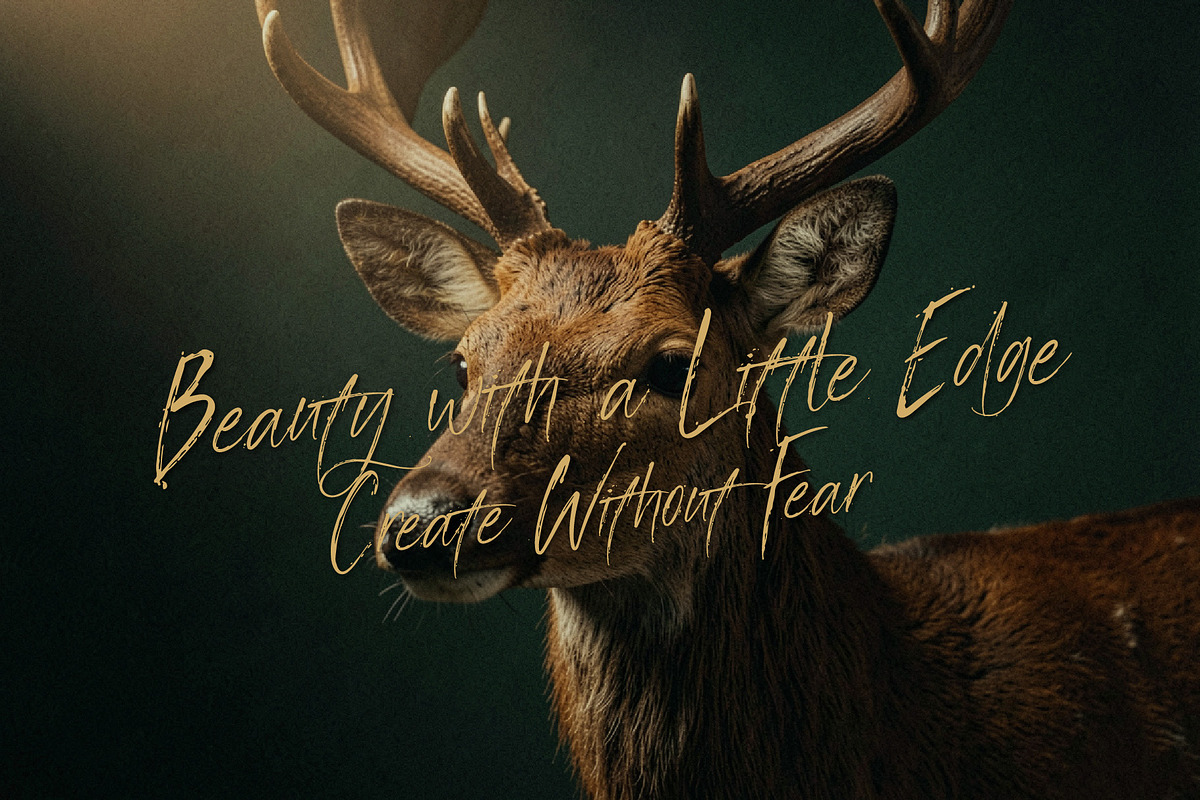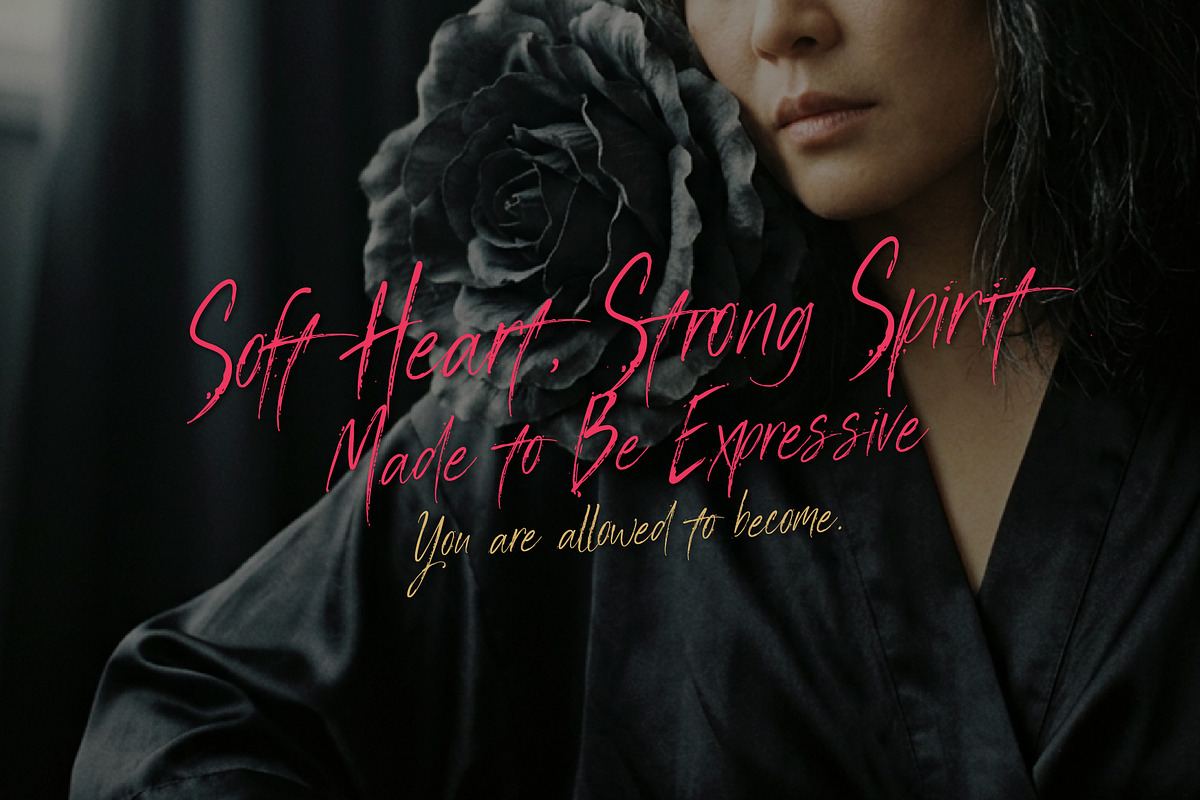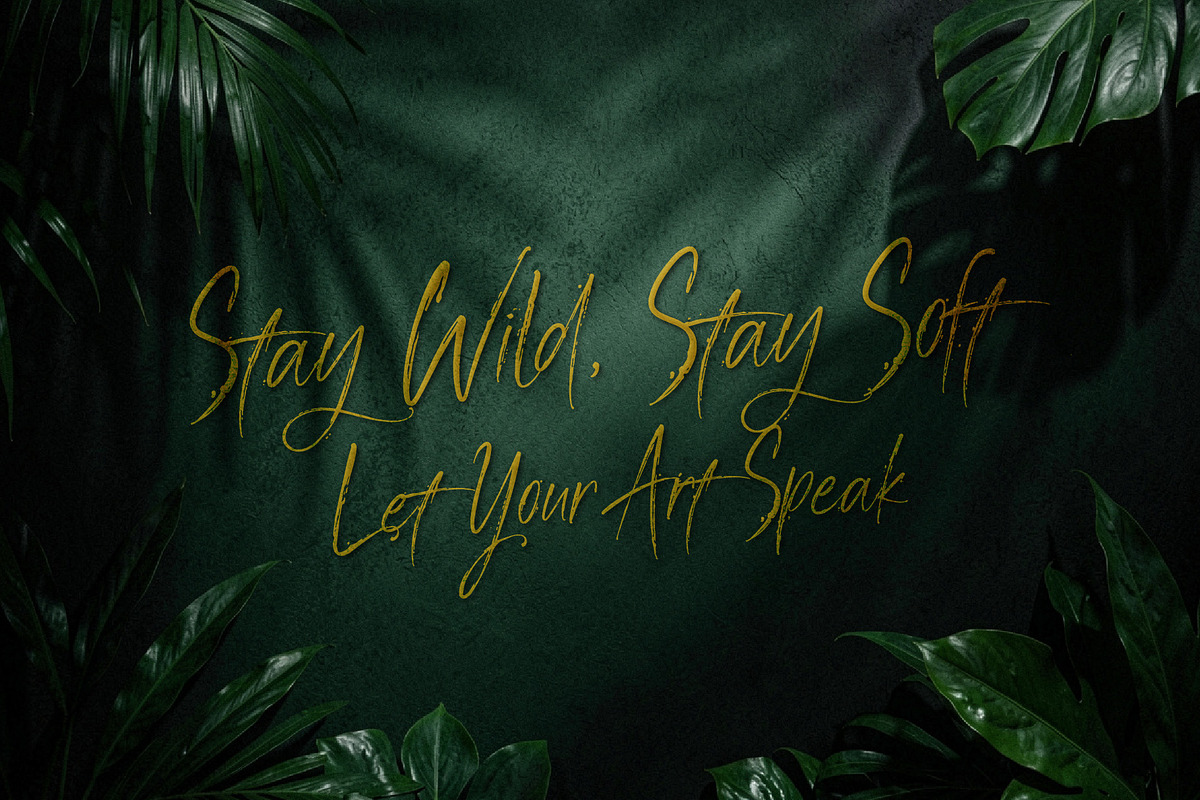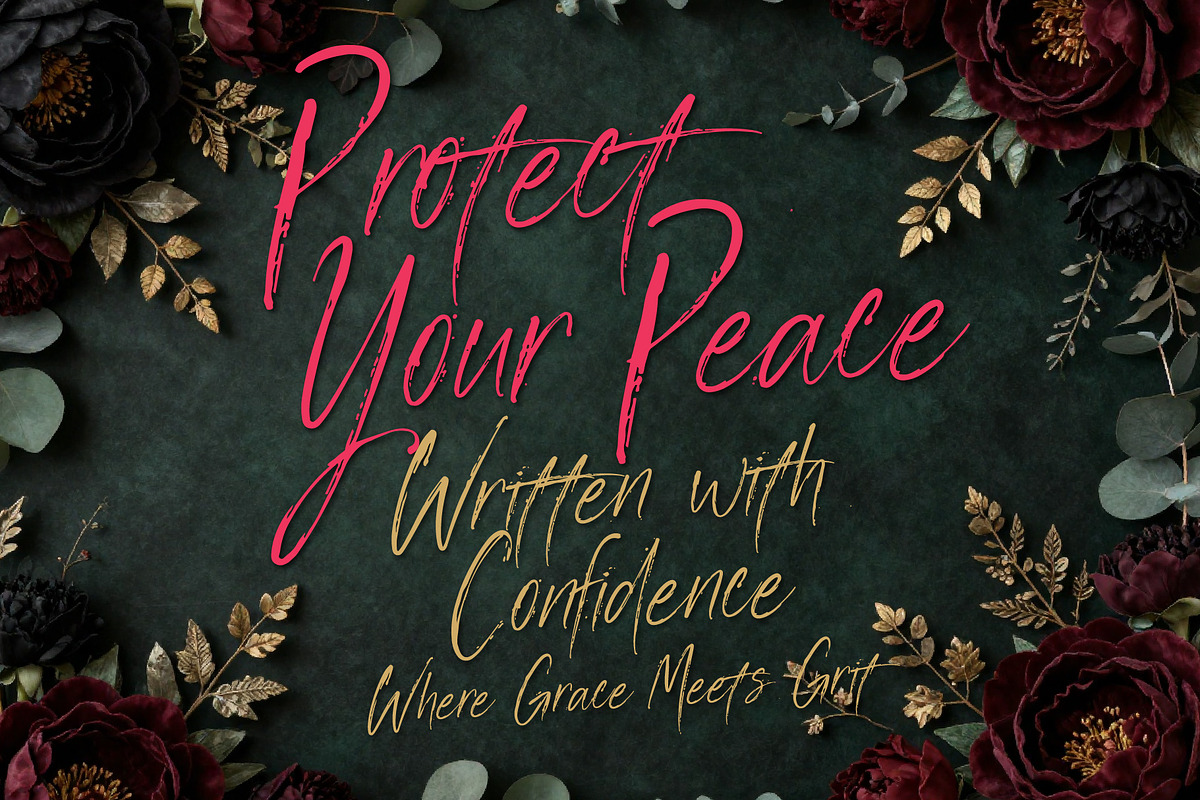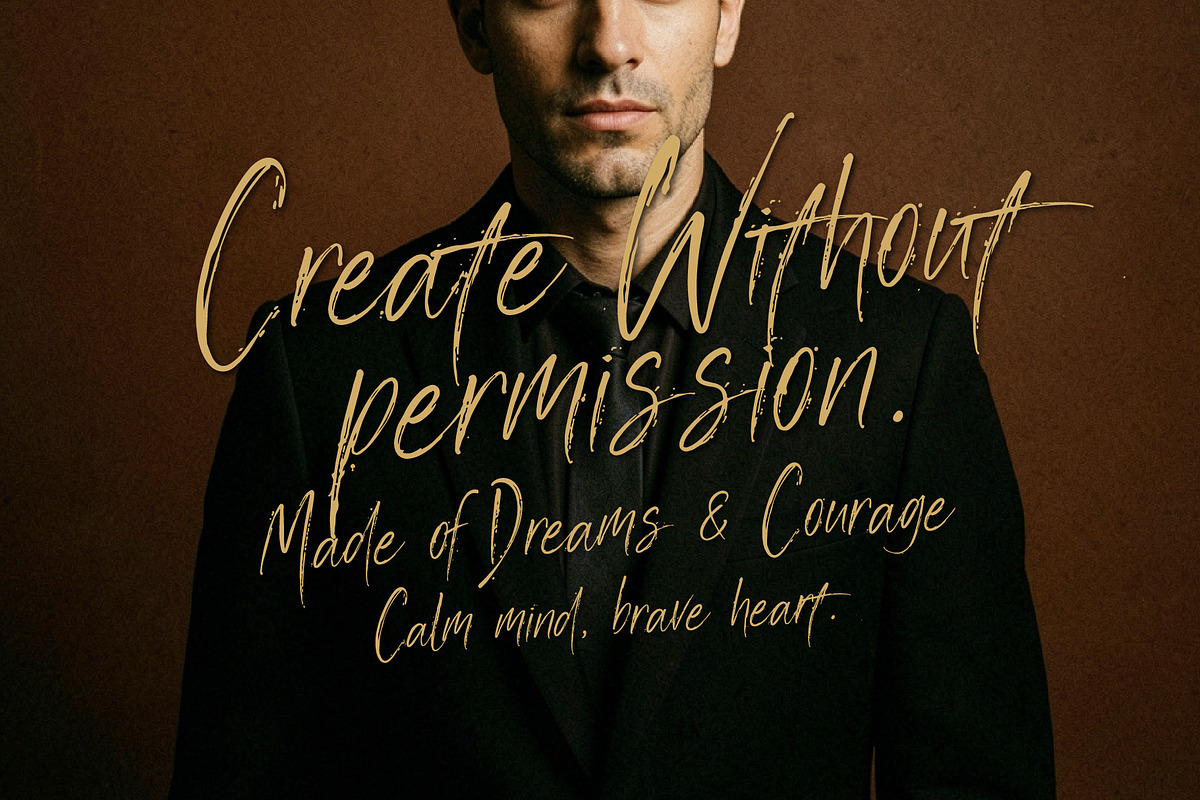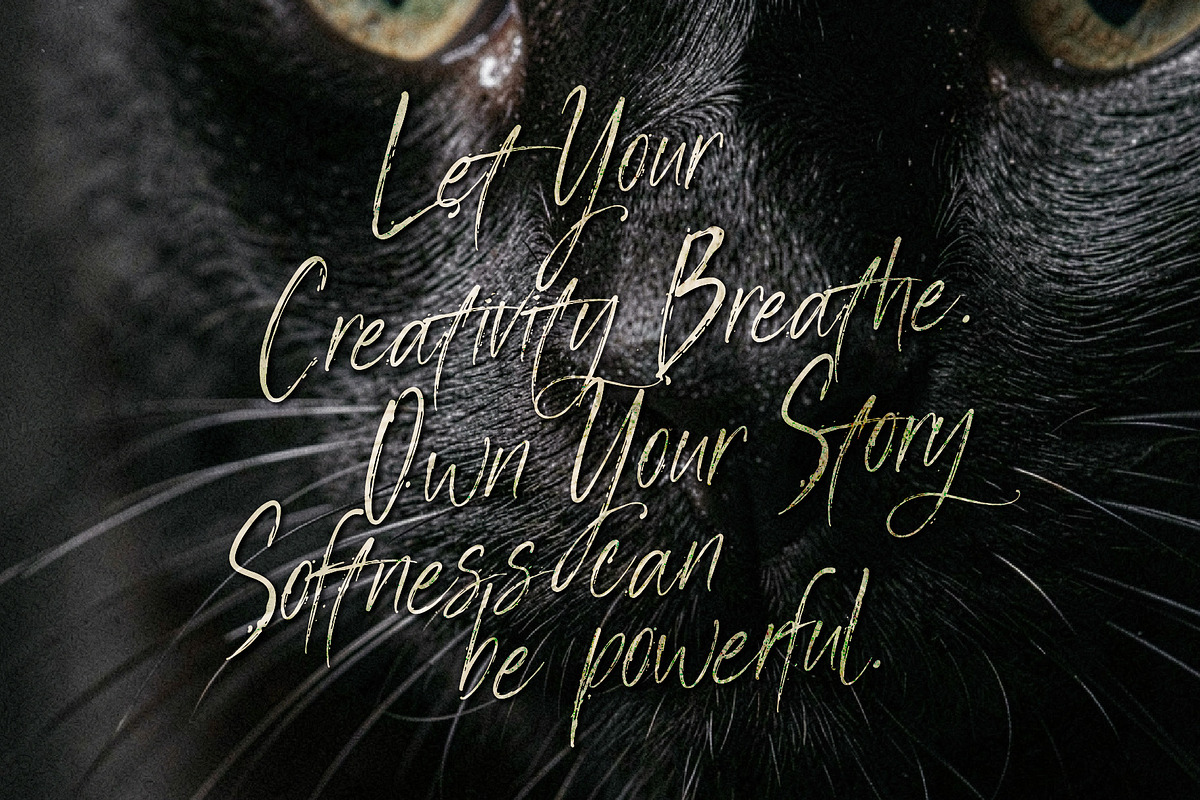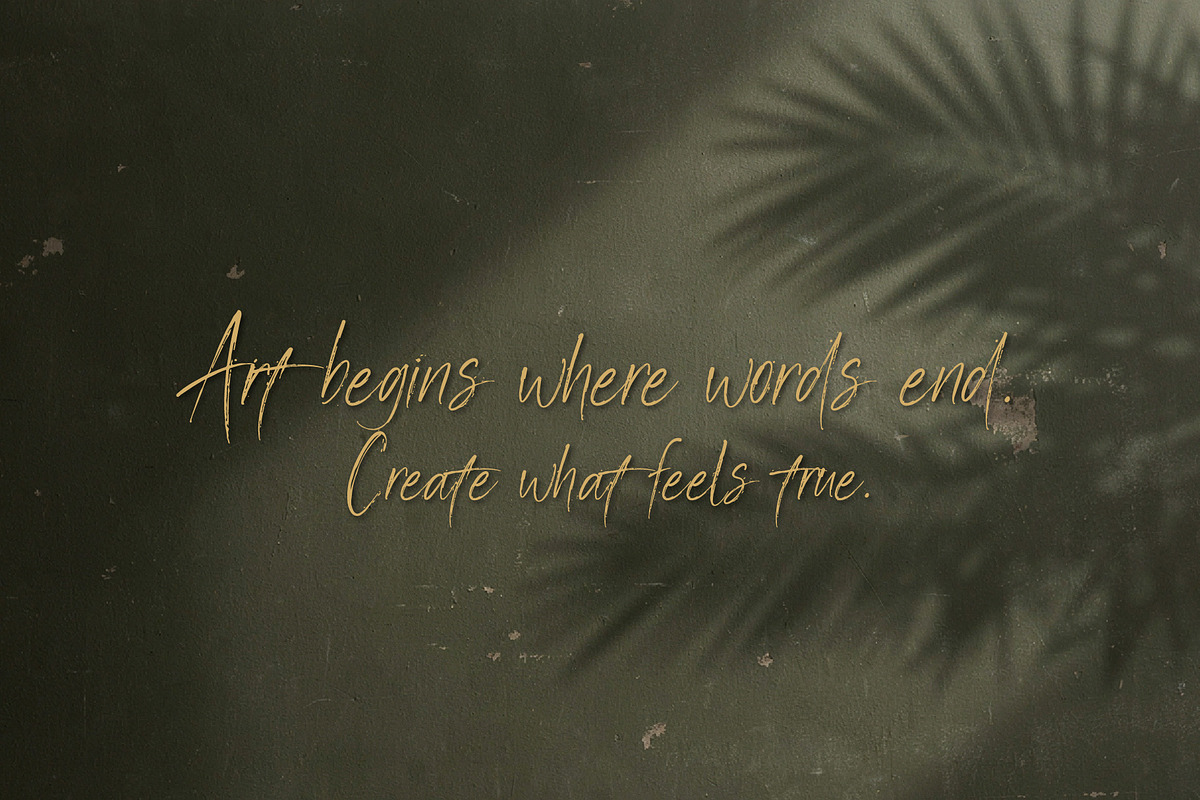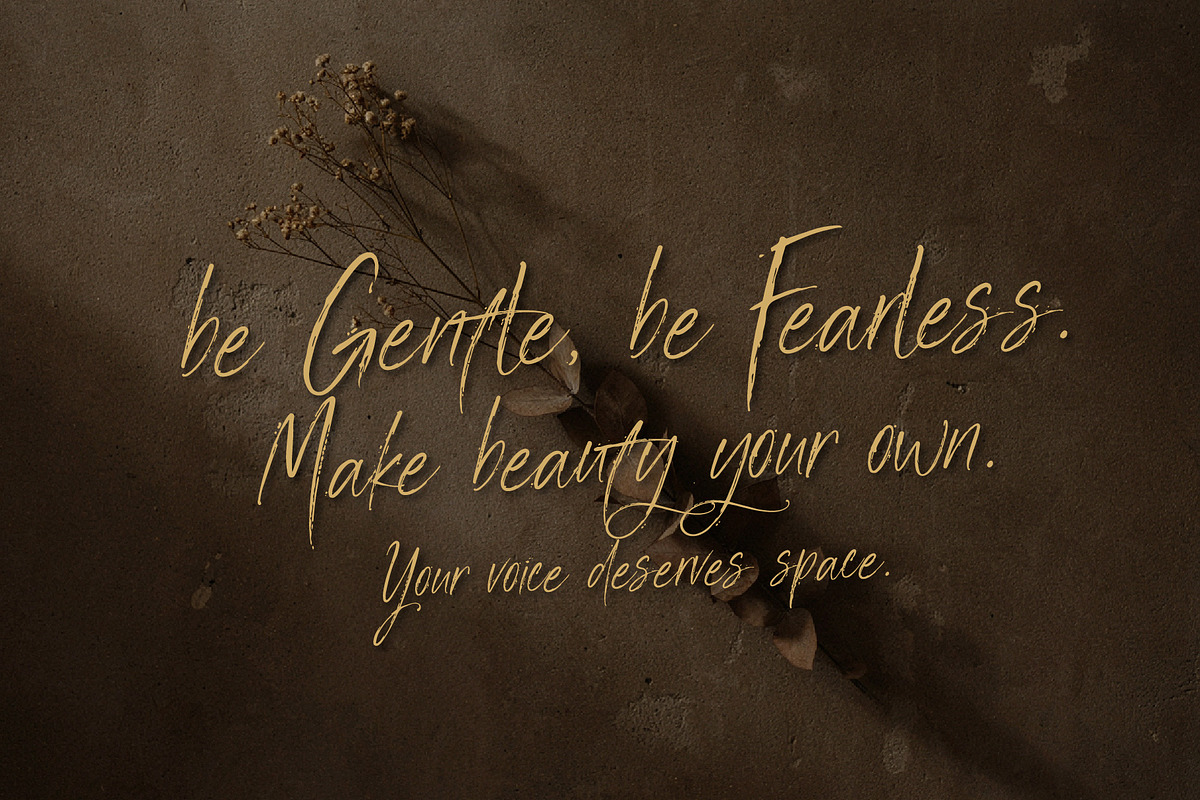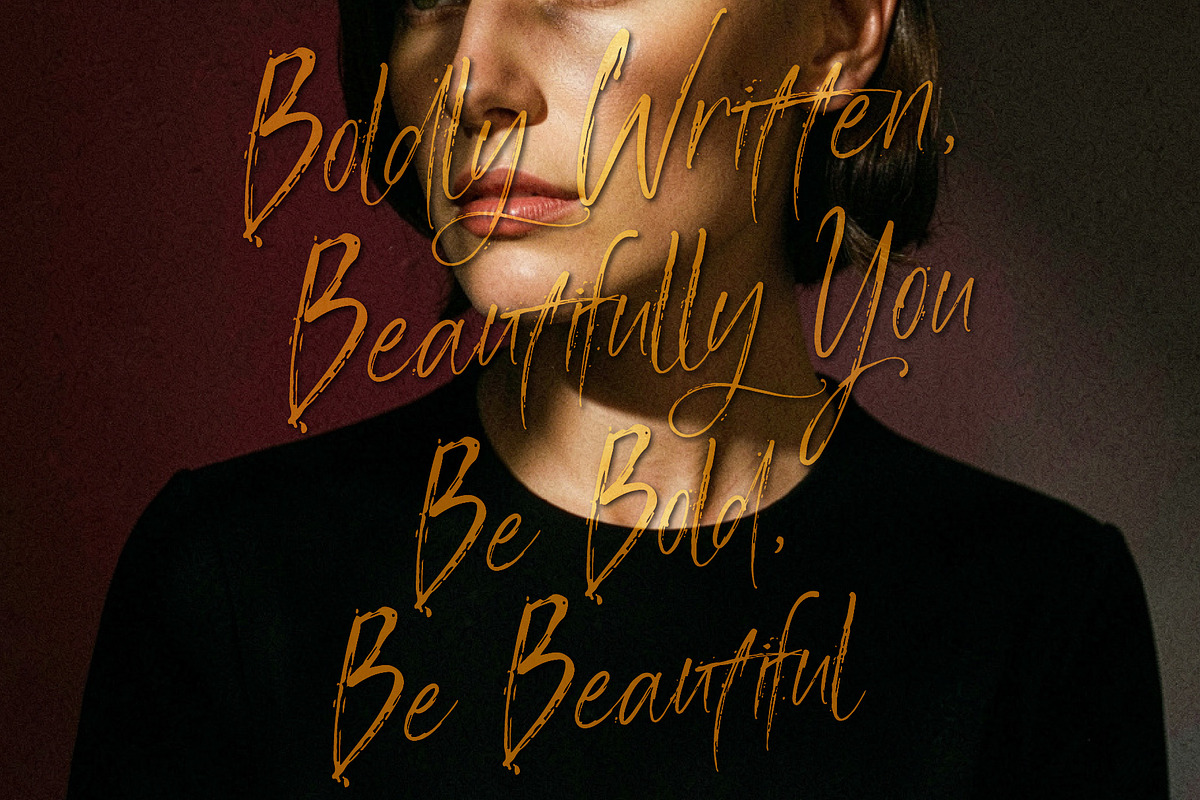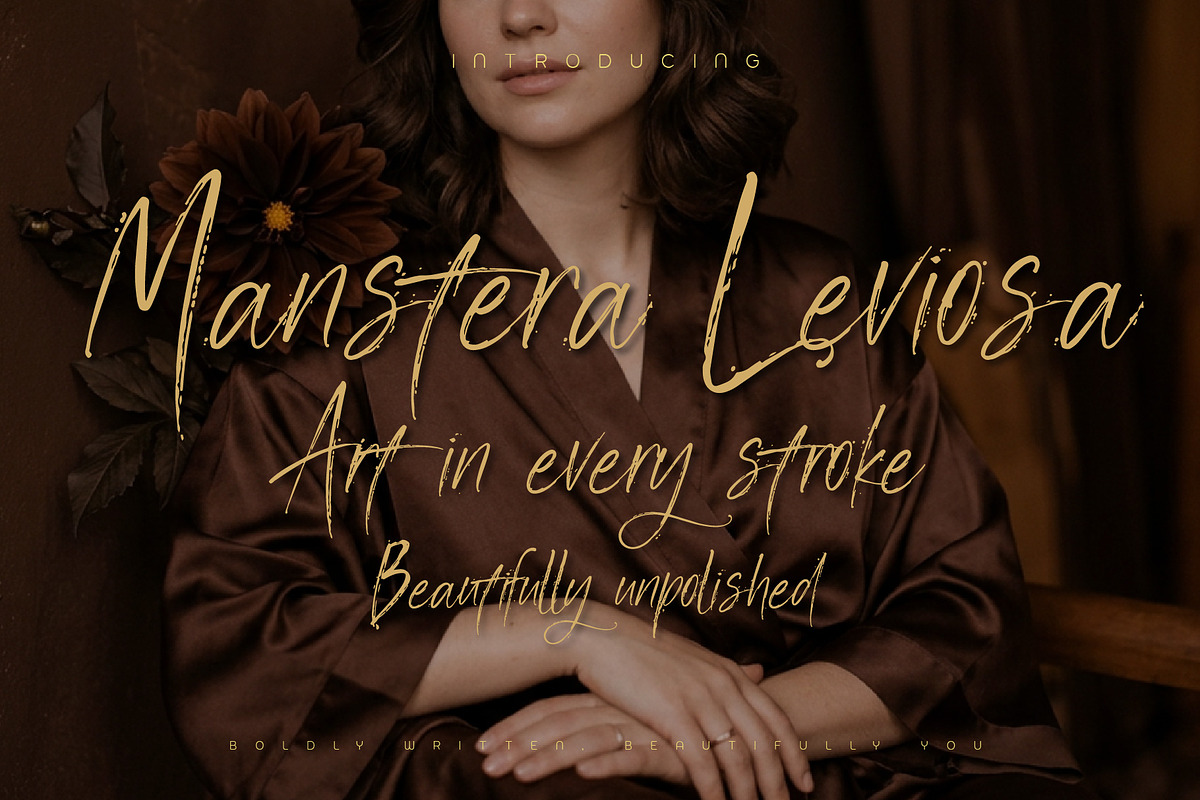
Manstera Leviosa - Expressive Script
Manstera Leviosa is a feminine brush script that blends expressive handwritten calligraphy with a subtle touch of grunge. Its flowing strokes, organic texture, and imperfect details create a beautifully artistic personality while keeping the overall look graceful and elegant.
Perfect for branding, fashion, beauty, lifestyle, posters, packaging, quotes, invitations, social media, and creative projects. Manstera Leviosa brings confidence, emotion, and a handcrafted artistic touch to every word.